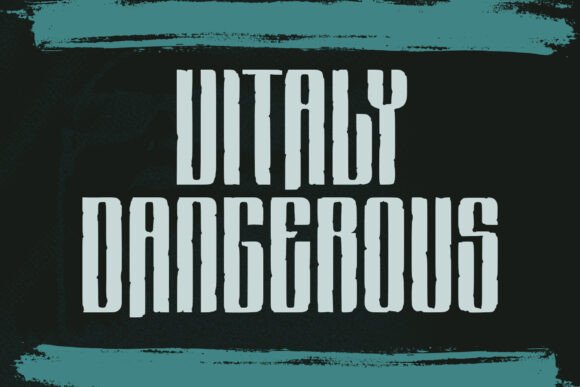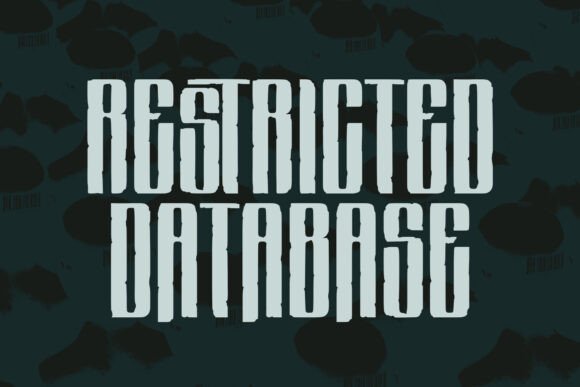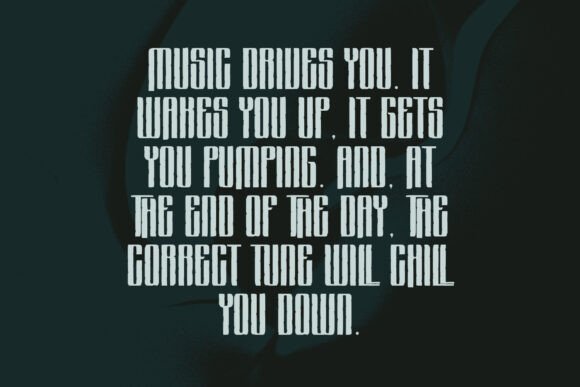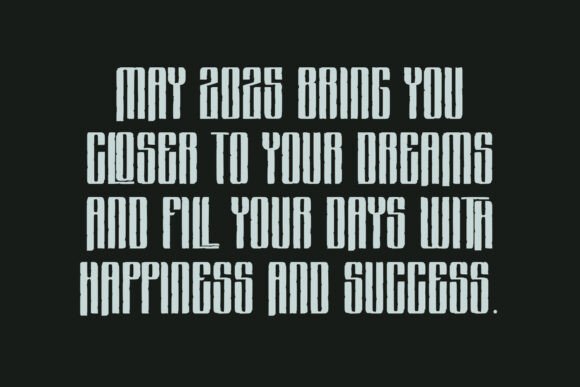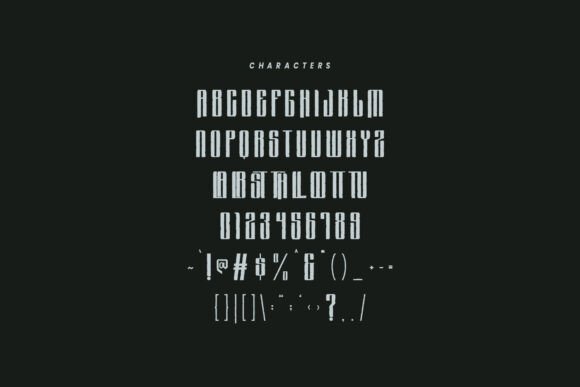
Introduction to Lagon Igraz Font
Imagine yourself in the middle of a creative project, surrounded by scraps of paper, paint splatters, and half-finished designs. You’re searching for the perfect font to give your work that extra oomph, and suddenly, you stumble upon Lagon Igraz Font. This stylish and bold typeface is about to change the game for you and your design.
Lagon Igraz Font combines vintage charm with a grungy edge, making it perfect for eye-catching designs like posters, logos, or t-shirts. With its unique texture, your text will have a raw, artistic feel that’s sure to grab attention. Whether you’re a seasoned designer or just starting out, Lagon Igraz Font is a valuable resource that’s waiting to be unleashed on your next creative project.
Key Features of Lagon Igraz Font
- High-quality design resource with a unique, creative style perfect for various projects.
- Optimized for high-resolution displays, ensuring crisp and clear text even at large sizes.
- Includes a range of font sizes, from small to extra-large, making it suitable for various creative projects.
- Designed to be versatile and easy to use, ideal for designers working on a wide range of creative projects.
Honest Review: Lagon Igraz Font
As a designer, I’m always on the lookout for high-quality design resources to elevate my creative projects. Recently, I had the chance to try out the Lagon Igraz Font, and I’m excited to share my honest review with you.
- ✨ The font is highly versatile and can be used in a variety of design contexts, from logos to digital displays.
- ✨ The transparent background feature makes it easy to layer the font over images or other design elements.
- ⚠️ The font may not be suitable for small text sizes, as it can become difficult to read.
- ⚠️ The font’s high quality may make it more resource-intensive, which could be a concern for designers working on older systems.
Tips for Getting the Most Out of Lagon Igraz Font
For a high-quality look, use the Lagon Igraz Font with a transparent background in your creative project. This will allow the font to stand out and add a touch of elegance to your design. You can also experiment with different font sizes and colors to create a unique visual effect.
The Lagon Igraz Font is ideal for use in various design projects, including logos, business cards, and brochures. Its high-quality design and transparent background make it a versatile design resource for any creative project.
The Lagon Igraz Font is designed to be a high-quality design resource, making it suitable for a wide range of creative projects. Its clean and modern design makes it perfect for branding, logos, and other design elements that require a professional touch.